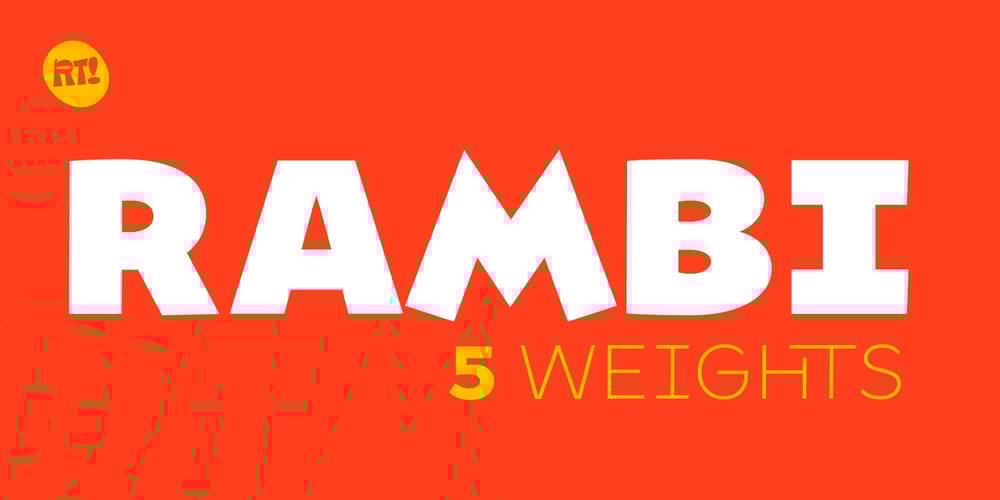
Rambi
Rambi font
Rambi Font Family was designed by Rodrigo Araya Salas and published by RodrigoTypo. Rambi contains 5 styles and family package options. Rambi is a sans serif font of five weights with Thin to Heavy. Rambi is a perfect typeface for posters, packaging, logos and any visual communication application inherent to children and youth designs.